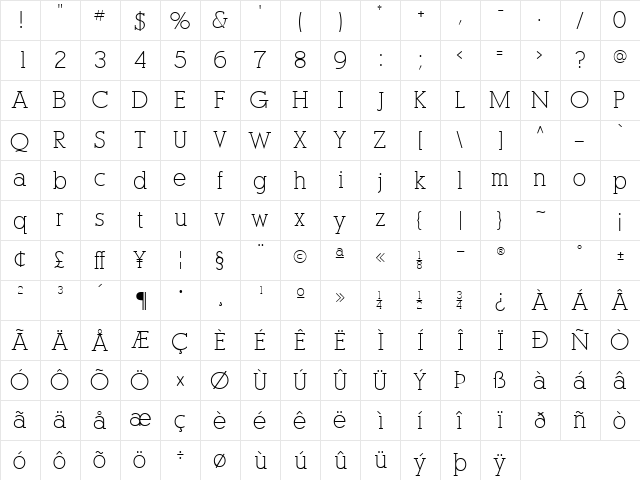
PogoSSK Regular
Design Context for PogoSSK Typeface
PogoSSK offers clean, dependable letterforms without strong stylistic allegiance, making it a practical choice for designers who need flexibility.